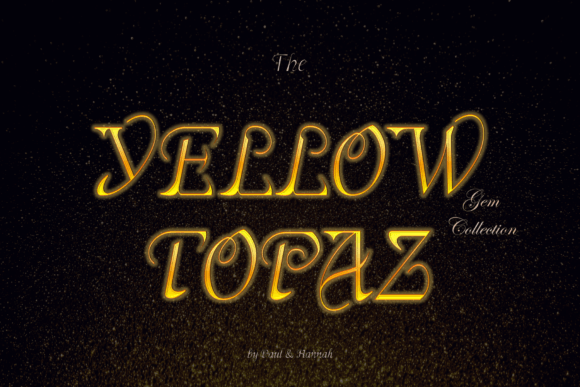
The Yellow Topaz Font: A Gem of Elegance and Strength
In the world of typography, fonts are not just a means of communication, but an expression of style, emotion, and personality. Among the myriad of fonts available, The Yellow Topaz stands out as a unique gem that embodies power, confidence, and blessings. This exquisite font is designed to convey a sense of luxury, sophistication, and value, making it perfect for special occasions and high-end products.
The Inspiration Behind The Yellow Topaz
The Yellow Topaz font is inspired by the gemstone of the same name, known for its vibrant yellow color and remarkable hardness. Topaz is often associated with qualities like strength, courage, and wisdom, which are reflected in the font’s design. The creators of The Yellow Topaz aimed to capture the essence of this precious gemstone and translate it into a typographic experience that exudes elegance and resilience.
Key Features of The Yellow Topaz Font
- Unique and Beautiful Lines: The Yellow Topaz font boasts flowing lines that are both aesthetically pleasing and distinctive. Each character is carefully crafted to create a sense of movement and fluidity, making the font perfect for headlines, titles, and decorative text.
- Conveys Power and Confidence: The font’s design is imbued with a sense of strength and confidence, making it ideal for brands and businesses looking to make a statement. The bold and assertive lines of The Yellow Topaz font command attention and inspire trust.
- Perfect for Special Occasions: Whether it’s a wedding invitation, a luxury product launch, or a high-end event, The Yellow Topaz font is the perfect choice for adding a touch of elegance and sophistication. The font’s unique style and beauty make it an excellent way to create memorable and impactful designs.
- Adds Value to Your Products: By using The Yellow Topaz font, businesses can add a premium feel to their products and marketing materials. The font’s association with luxury and quality makes it an excellent choice for brands looking to elevate their image and appeal to discerning customers.
The Design Process: Crafting a Gem of a Font
The creation of The Yellow Topaz font involved a meticulous design process that aimed to balance beauty, legibility, and uniqueness. The designers employed a combination of traditional techniques and modern technology to craft a font that is both timeless and contemporary.
Step 1: Research and Inspiration
The design process began with an in-depth study of the topaz gemstone and its characteristics. The designers explored various typography styles, seeking inspiration from classic serif fonts, elegant script fonts, and modern sans-serif fonts.
Step 2: Sketching and Concept Development
Armed with inspiration and a clear understanding of the project’s goals, the designers began sketching and conceptualizing The Yellow Topaz font. They experimented with different line styles, letterforms, and typography elements to create a cohesive and distinctive design.
Step 3: Digital Refining and Testing
Using digital tools, the designers refined their sketches and created a working prototype of The Yellow Topaz font. They tested the font in various contexts, ensuring that it remained legible and visually appealing across different mediums and sizes.
The Versatility of The Yellow Topaz Font
One of the key advantages of The Yellow Topaz font is its versatility. This font can be used in a wide range of applications, from luxury branding and advertising to packaging and editorial design.
Luxury Branding and Advertising
The Yellow Topaz font is perfect for luxury brands looking to create a high-end image. Its elegant and sophisticated design makes it ideal for use in logos, advertisements, and marketing materials.
Packaging Design
The font’s unique and eye-catching style makes it an excellent choice for packaging design. Whether it’s a premium food product, a high-end cosmetic, or a luxury item, The Yellow Topaz font can add a touch of elegance and sophistication.
Editorial Design
The Yellow Topaz font can also be used in editorial design, such as in magazines, newspapers, and books. Its flowing lines and elegant design make it perfect for headlines, titles, and pull quotes.
The Yellow Topaz font is a true gem in the world of typography. Its unique blend of elegance, strength, and beauty makes it an excellent choice for designers, brands, and businesses looking to create a lasting impression. Whether you’re looking to add a touch of luxury to your branding, packaging, or editorial design, The Yellow Topaz font is sure to impress.
A Font that Embodies Value and Excellence
In a world where typography plays a crucial role in communication and branding, The Yellow Topaz font stands out as a shining example of excellence. Its designers have succeeded in creating a font that not only looks beautiful but also conveys a sense of power, confidence, and value.
A Worthy Addition to Your Typography Collection
If you’re looking to elevate your design game and add a touch of luxury to your work, The Yellow Topaz font is an excellent choice. Its unique style, versatility, and elegance make it a worthy addition to any typography collection.